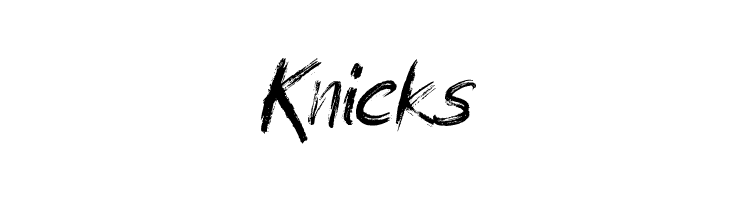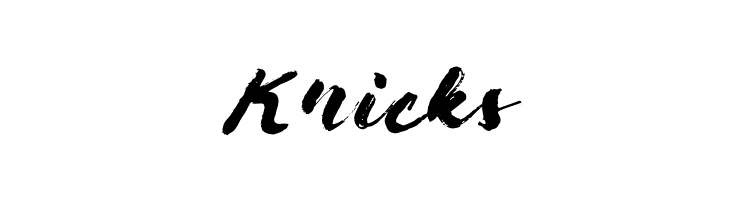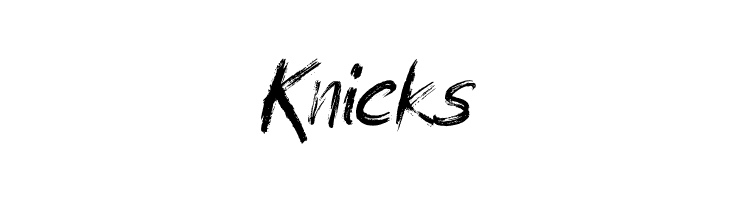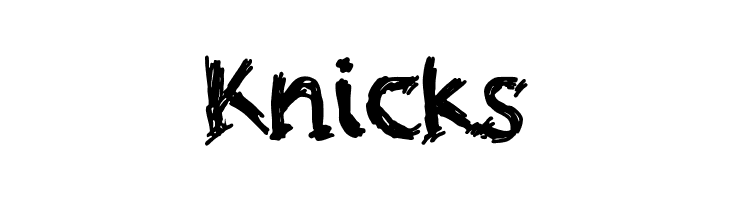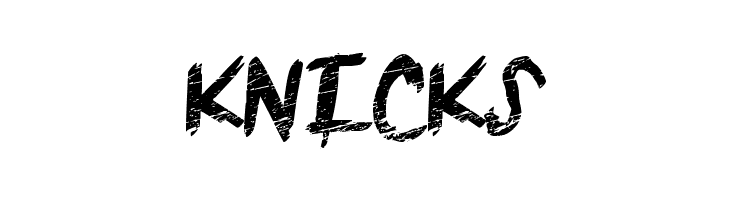
A bold, expressive brush-style font with textured, irregular strokes.
A dynamic brush script font with fluid, expressive strokes.
A bold, expressive brush-style font with a handcrafted appearance.
A dynamic, brush-style font with a handwritten, expressive look.
A bold, brushstroke-inspired font with a grunge aesthetic.
A lively, cursive font with expressive, flowing strokes and elegant curves.
A bold, expressive brush-style font with dynamic, hand-painted strokes.
A bold, brush-style font with dynamic, textured strokes.
A bold, brushstroke-style font with an energetic and expressive appearance.